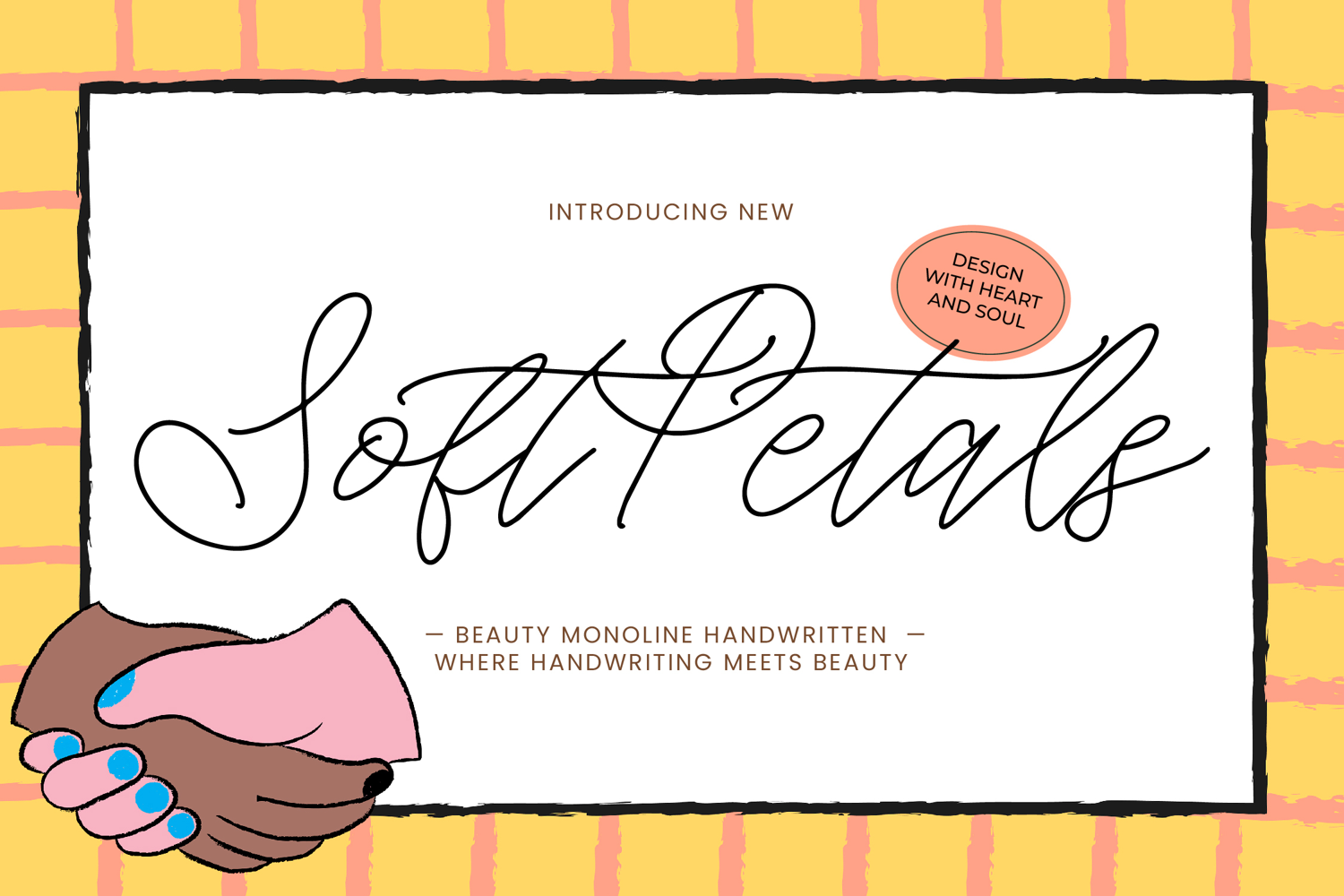
Soft Petals
🌸 Soft Petals – Elegant Script Font with a Delicate Floral Touch for Your Dream Designs! 🌸
Introducing Soft Petals, a beautifully handwritten script font inspired by fresh flower petals dancing in the spring breeze. Each letter features natural flowing strokes, harmonious uppercase and lowercase characters, plus complete numbers, symbols, and punctuation for maximum versatility. Perfect for adding a romantic and luxurious touch to your creative projects, much like popular petal fonts adored by thousands of designers worldwide.
Key Features of Soft Petals
• Premium Handwritten Style: Bold uppercase for striking headlines, soft lowercase for smooth text—ideal for layering and floral effects.
• Fully Loaded Glyphs: Supports numbers, symbols, and alternates seamlessly—ready to use without hassle.
Ideal Uses – Boost Your Design Sales!
This font shines in:
• Wedding invitations, save the dates, and romantic stationery.
• Feminine branding logos, beauty packaging, or boutique fashion.
• Instagram motivational quotes, floral posters, and merchandise like mugs or T-shirts.
• Kids' projects, storybooks, or spring/bridal designs.